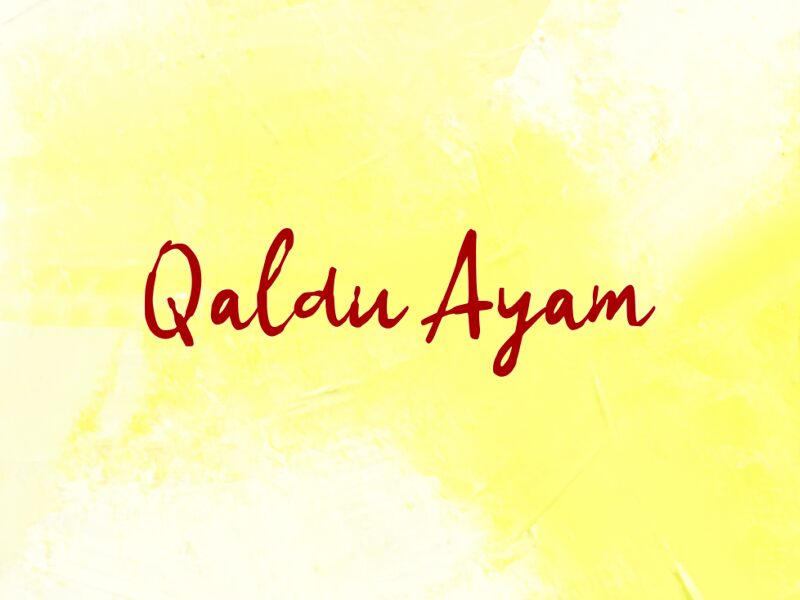
Qaldu Ayam font by wep is a free handwritten font embodying an energetic and youthful style. The letters imitate a natural hand-drawn style, combining casual irregularity language with simple and clean shapes. Not overly decorated, the font, nonetheless, has an adventurous appearance with creative flair.
Suggested uses of this font include product packaging, comics, posters, or books targeted at children. Ideal also for event promotional posters or headlines for school events or concerts of alternative music. Use anywhere where the unique spirit of youth, wildness, and warmth is needed.
Qaldu Ayam is a unique free font that combines artistic flair with versatility. Perfect for a variety of design projects, this font can be seamlessly integrated into both digital and print media. Whether you are designing a flyer, creating a logo, or developing a website, Qaldu Ayam adds a creative touch to your work.